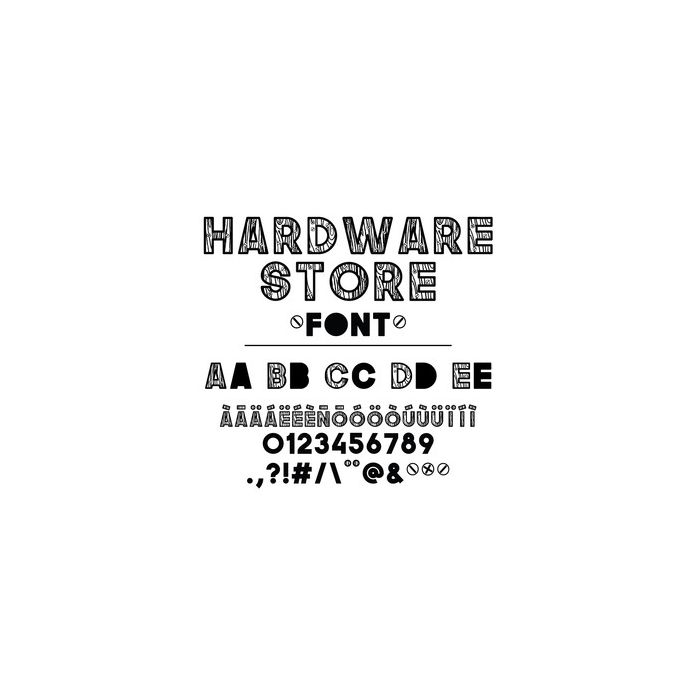
hardware store font
Hardware Store Handdrawn wood effect font with uppercase solid letters, lowercase wood effect letters, international characters, numbers and glyphs.